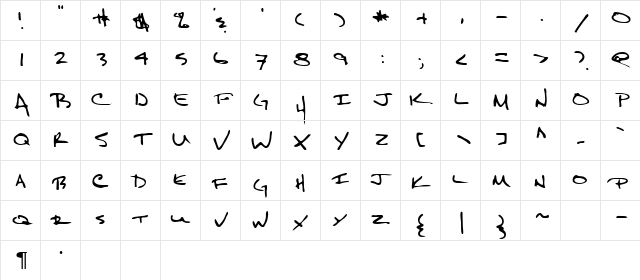
Ankeny Regular Free Font
Ankeny Regular
Design Context for Ankeny
Ankeny is a composed and adaptable typeface that performs quietly and consistently across a wide range of design contexts.